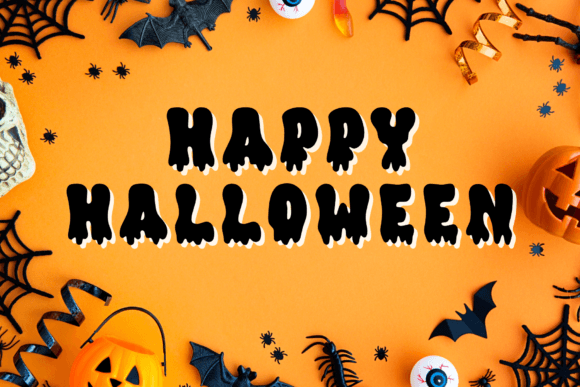
Looking to add a touch of spooky charm to your designs this Halloween season? Look no further than Happy Halloween Font! This captivating display font is the perfect choice for creating eye-catching posters, print materials, or digital artwork that will leave a lasting impression.
Created by the talented Plerndigiart, Happy Halloween Font is specifically designed to capture the essence of Halloween. With its spooky yet playful vibe, this font will instantly give your designs a fun and mysterious edge that is sure to captivate your audience.
Whether you're designing party invitations, haunted house flyers, or social media graphics, Happy Halloween Font is the ultimate tool to bring your Halloween-themed creations to life. Its unique and intricate letterforms will make your text stand out and evoke a sense of excitement and anticipation in your viewers.
What sets Happy Halloween Font apart from other Halloween fonts is its ability to infuse your designs with both amusement and enigma. With each letter, this font showcases the spirit of Halloween, from the eerie curves to the hauntingly beautiful details. It's a font that not only catches the eye but also sparks curiosity and intrigue.
No matter the medium, Happy Halloween Font shines through. Its versatility allows it to seamlessly integrate into various design projects, ensuring that your Halloween-themed creations are both visually stunning and impactful. Whether you're creating posters to promote your Halloween party or crafting digital artwork for social media, this font will elevate your designs to new heights.
Embrace the ultimate excitement of the Halloween season with Happy Halloween Font. Let your imagination run wild as you conjure up bewitching designs that will leave a lasting impression on your audience. From spine-chilling posters to bone-rattling print materials, this font is the key to making your Halloween-themed creations truly unforgettable.